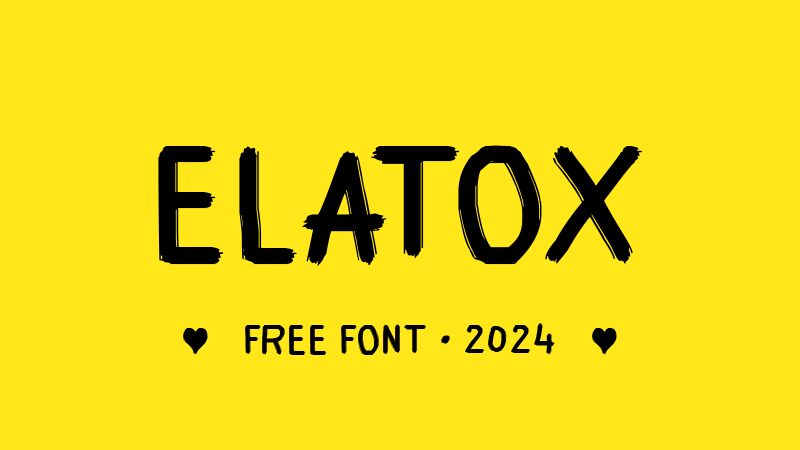
Elatox Italic captivates with its vibrant brush style, exuding energy and movement. The sweeping strokes create a dynamic flow that draws the eye, while the bold character of the letters ensures they stand out in any design. This font elegantly balances expressiveness and readability, making it an ideal choice for projects that seek to communicate creativity and individuality.
Its unique design makes Elatox Italic perfect for branding campaigns, event posters, or any artwork aiming to leave a memorable impression. The font’s lively essence can enhance everything from expressive headlines to artistic invitations, ensuring that your message is delivered with flair and personality. Embrace Elatox Italic to infuse your designs with a sense of urgency and charm.
Elatox Italic